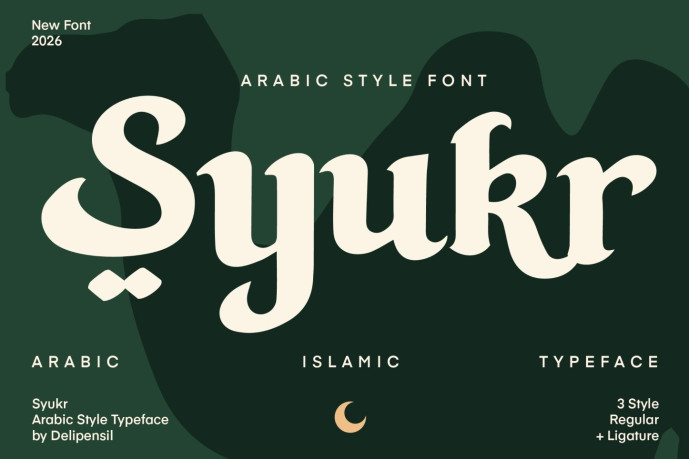
Syukr Display Font
Syukr Display Font is an elegant Islamic display font inspired by the spirit of gratitude and the beauty of Ramadan. With refined curves and subtle Arabic influences, Syukr blends modern sophistication with a timeless spiritual touch.
Designed to stand out in headlines and branding, this typeface delivers a strong visual presence while maintaining grace and harmony. Perfect for both digital and print projects, Syukr brings warmth, faith, and elegance into every design.
Whether you’re creating Ramadan promotions, Eid celebrations, luxury halal branding, or meaningful social media visuals, Syukr offers a distinctive and memorable typographic style.